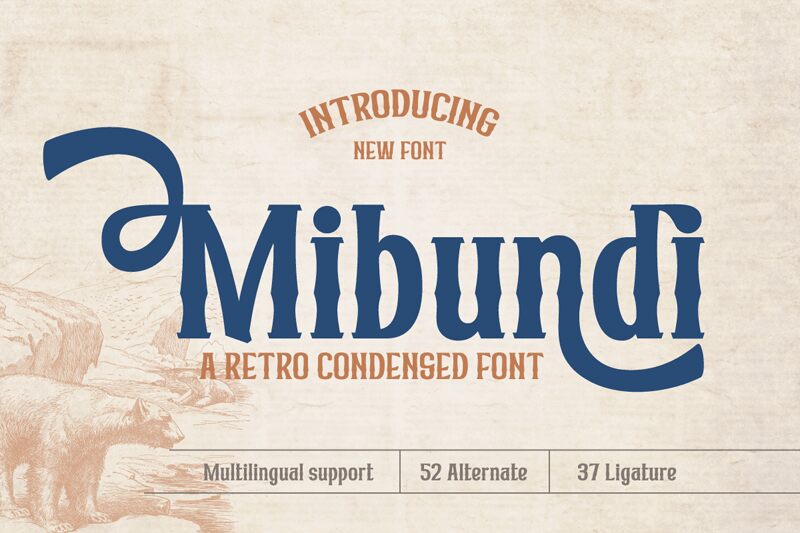
Mibundi by Twinletter is a captivating display font that exudes a delightfully retro charm. Its condensed width lends a striking presence, while the distinctive letterforms evoke a sense of vintage allure. The bold, angular strokes and subtle imperfections contribute to a visually arresting aesthetic, evoking a timeless elegance that commands attention.
This versatile font can elevate a wide range of design projects, from eye-catching headlines and logo designs to retro-inspired branding and packaging. Its condensed structure makes it an excellent choice for creating impactful typography in limited spaces, ensuring your message stands out with confidence and style.